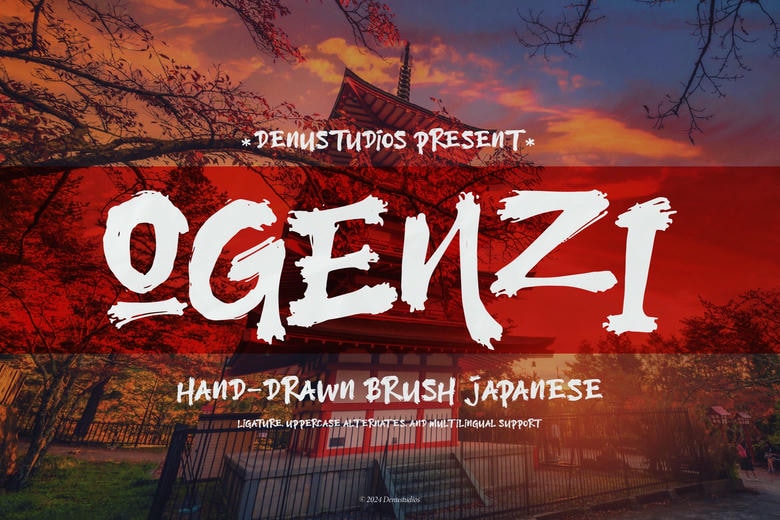
Ogenzi Font
Ogenzi | Hand Drawn Japanese, from Denustudios, suitable for any projects such as: logo design, branding, homeware design, packaging, mug designs, quotes, poster, shopping bag, T-shirt designs, cover design, name card, invitation cards, greeting cards, labels etc, photography, watermark, special occasion and all other your wonderful projects where you need a Hand drawn Japanese style.
Ogenzi Brush Font